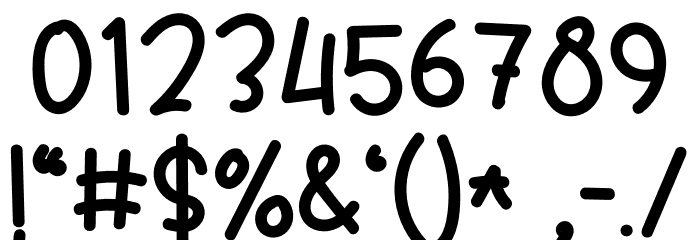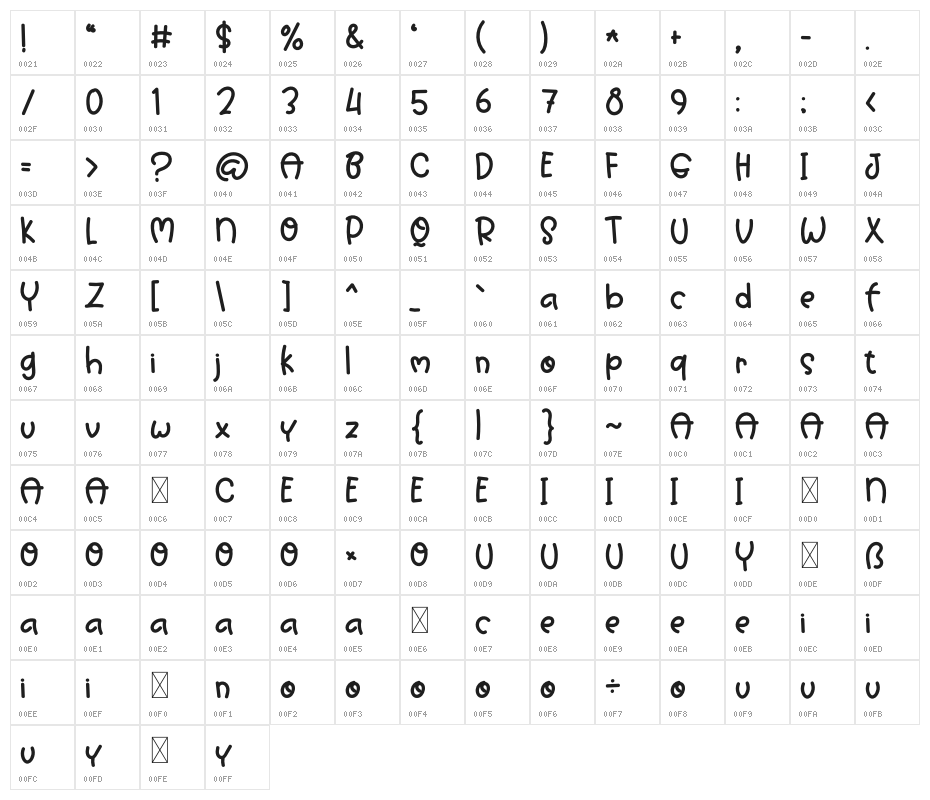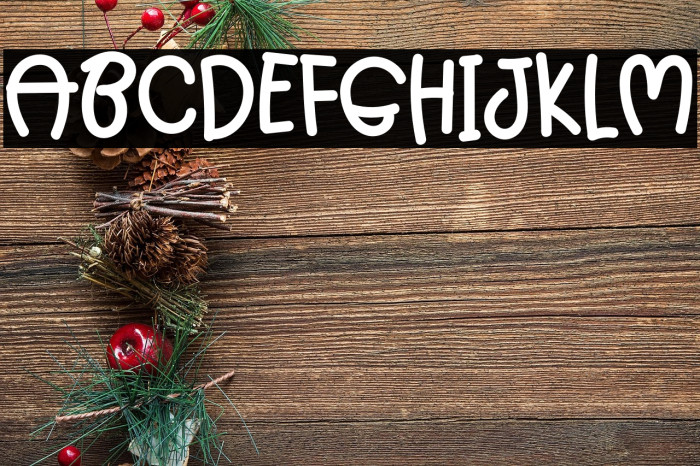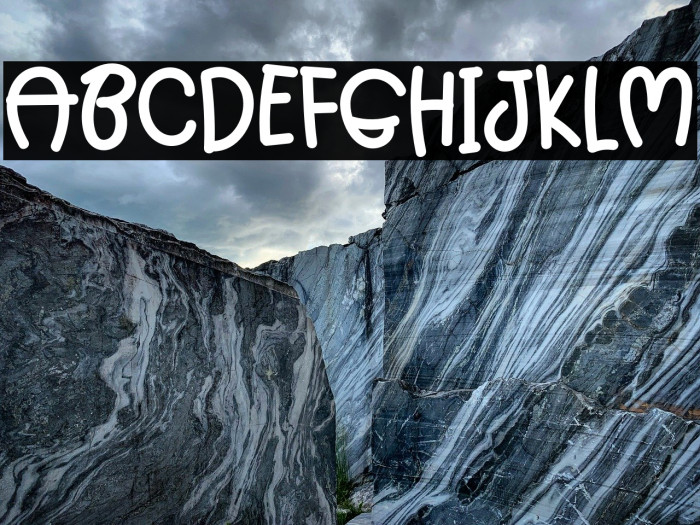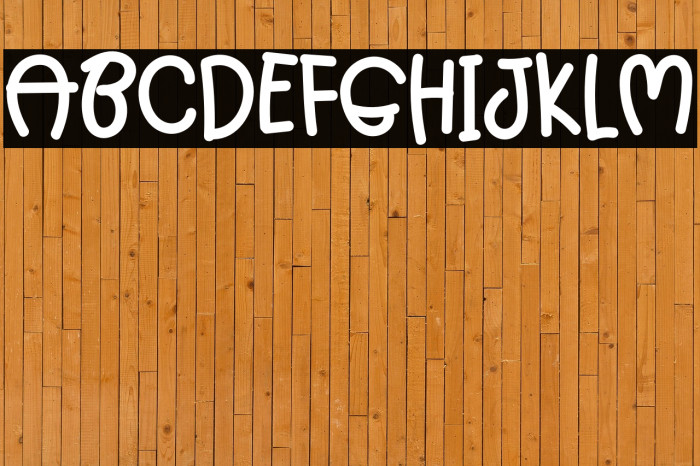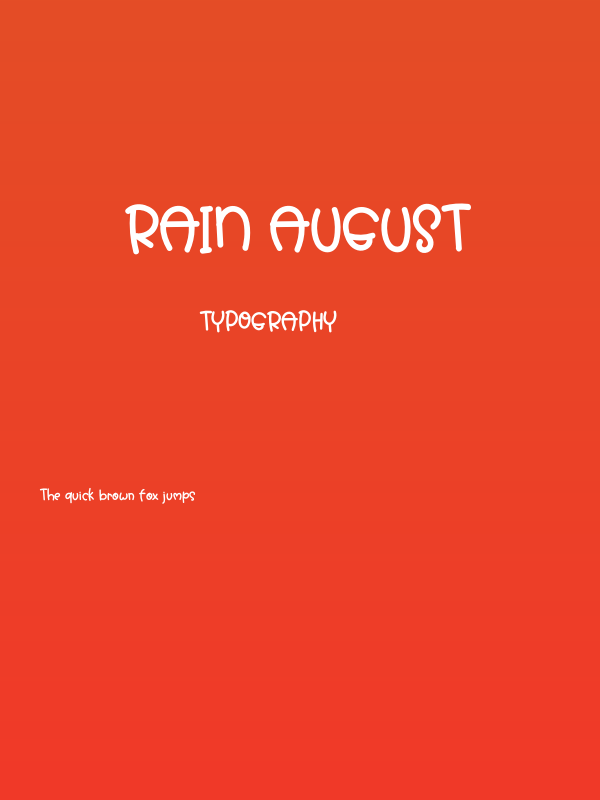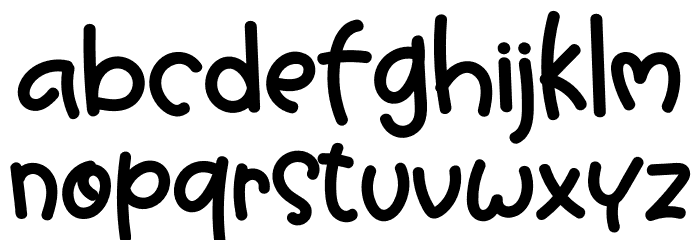
Rain August Font
Rain August Description
This playful and whimsical font features rounded, bold characters with a hand-drawn appearance. The letters have a consistent stroke width, giving them a cohesive look. The uppercase and lowercase letters maintain a friendly and approachable style, with some characters exhibiting unique quirks, such as the looped 'g' and the distinctive 'q'. The numerals and special characters follow the same playful design, making the font suitable for creative and informal applications. Its overall appearance is casual and fun, perfect for projects that require a touch of personality and charm.
| Proposed Projects | Ideal for children's books, greeting cards, playful branding, and casual invitations. |